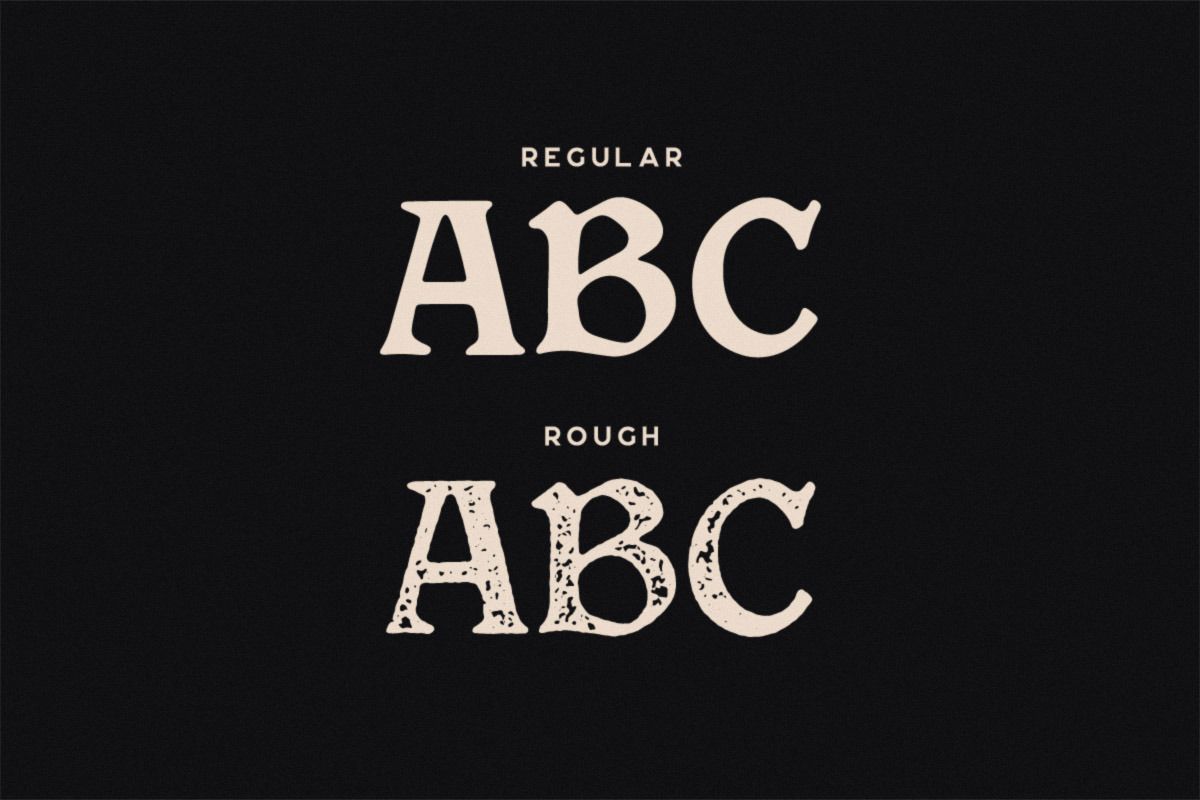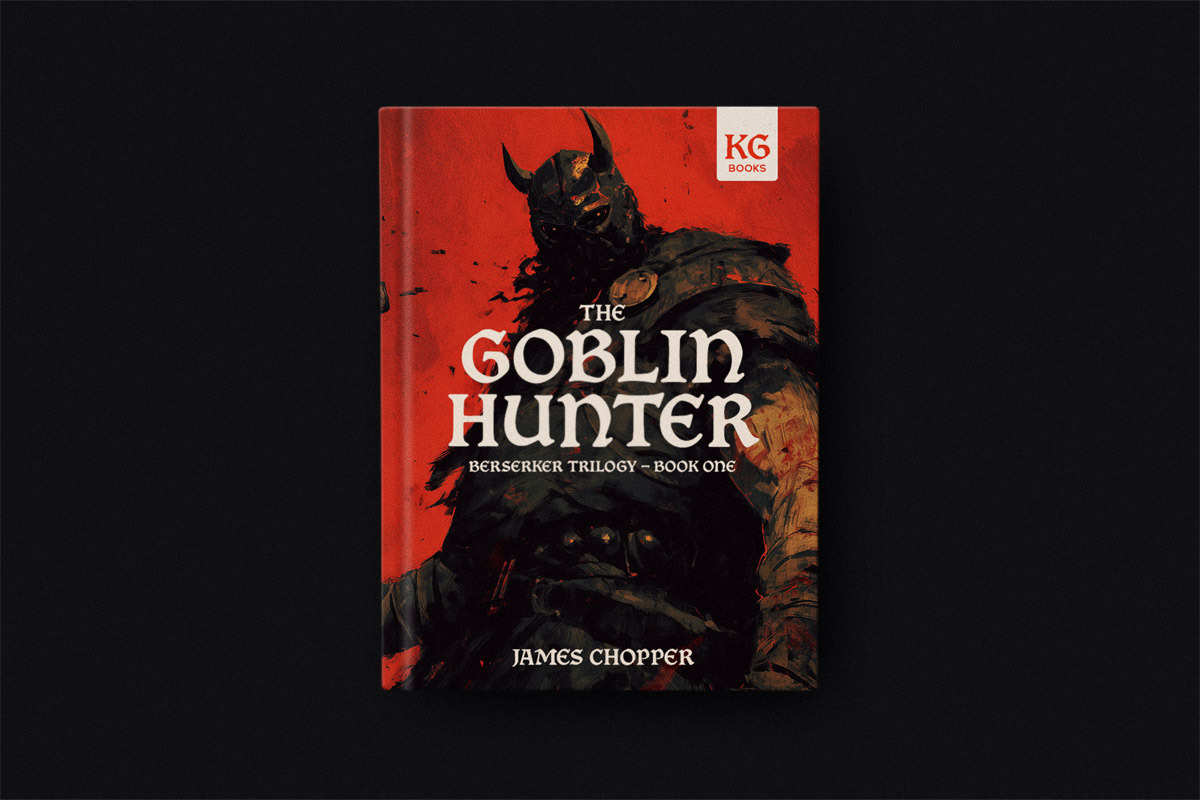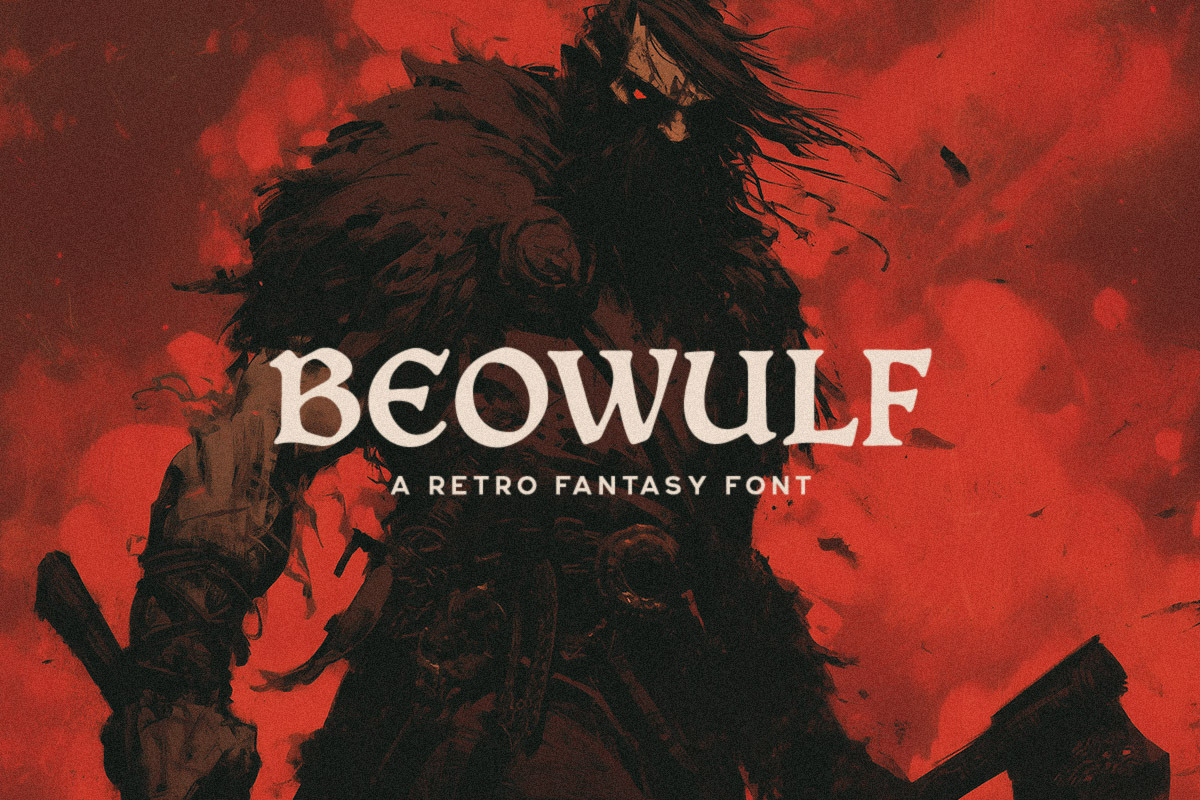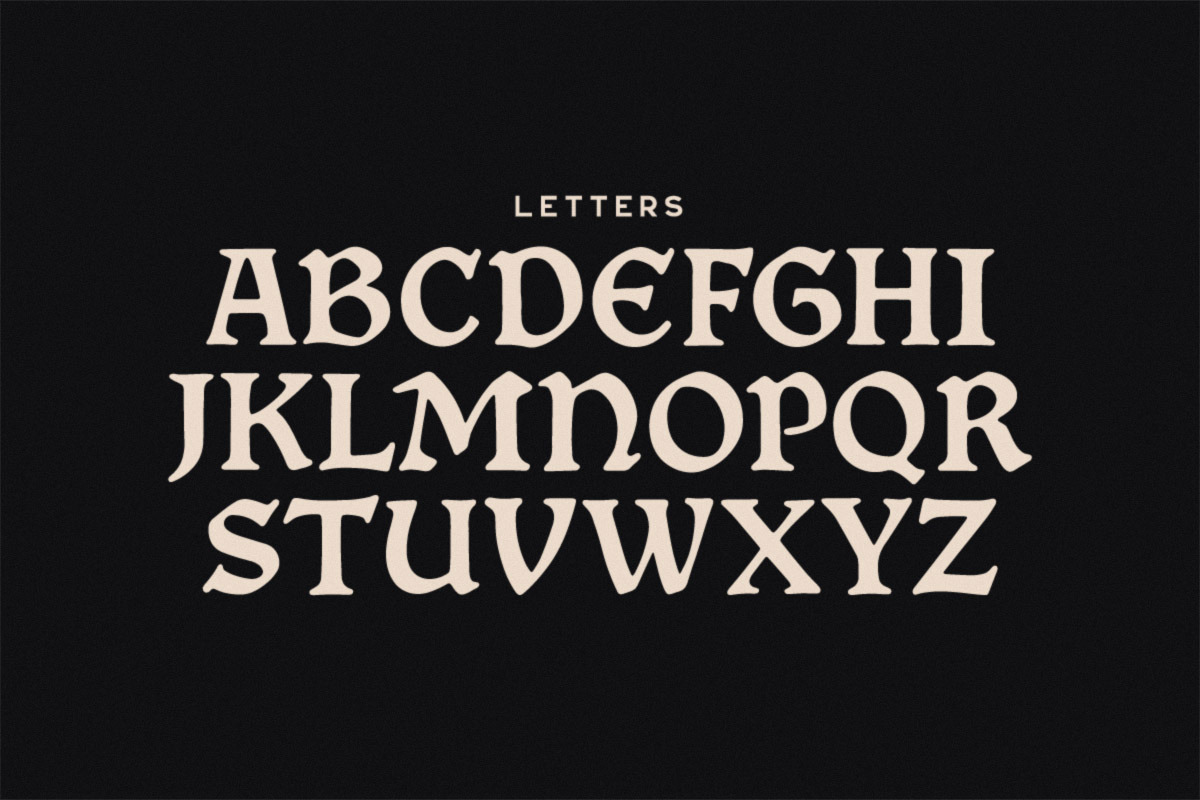
Beowulf Typeface
Beowulf is a rugged retro fantasy serif inspired by classic sword-and-sorcery novels, dark folklore, and vintage heroic fantasy covers. With its bold medieval curves, chipped serifs, and subtle rough edges, it captures the spirit of epic adventures, legendary warriors, and mythic storytelling. Perfect for book covers, game titles, posters, branding, and anything that needs an old-world, heroic fantasy aesthetic. Includes both Regular and Rough styles.